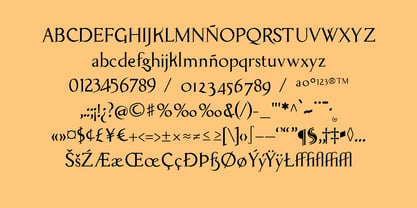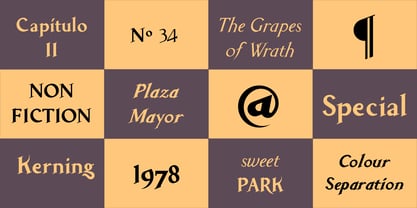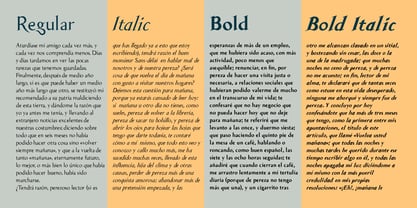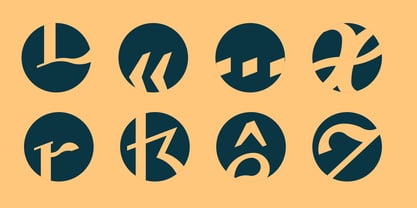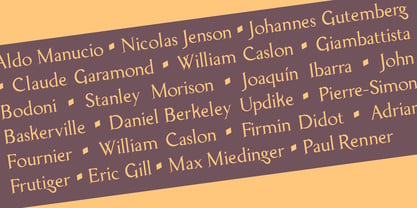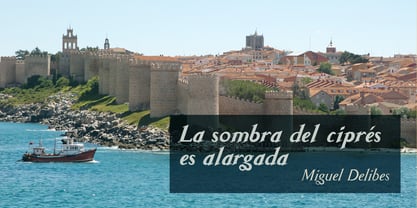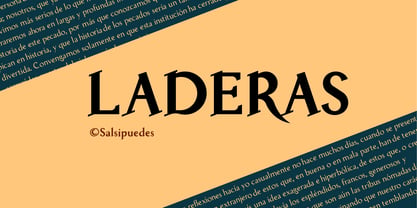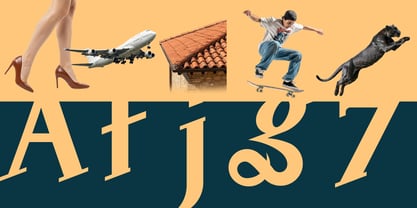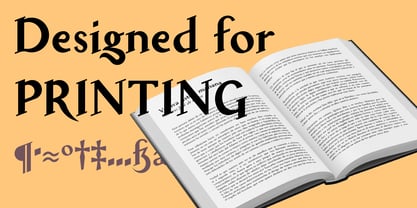
Laderas
This is not a typeface; this is also a tribute to the pioneers in this wonderful world of creating new tools of communication. The first printers in Europe carried out their work at a time when classical antiquity was beginning to be rediscovered. That influence blended with the scribal tradition, particularly in Central Europe.
Laderas aims to critically reexamine those early days, when Western typographic standards were established, and offer a different perspective. We now very used to working with typefaces with a stable baseline but the old Gothic style did not have a clear ending at bottom instead. Laderas experiments with blending both traditions Gothic and Roman but also includes elements from the Modern typography such as the thin and not modulated endings. The oblique endings make the letters dance on the baseline recalling the imperfections in the first printing pages.
Laderas is a typeface specially designed for printing and for a large text that require careful reading. Nowadays when the everything must go increasingly faster, having a communication tool that helps make the reading experience more relaxing is a very positive factor for well-being.
Finally, Laderas is versatile, with four weighs that covers most typographic needs, and it features a wide range of glyphs that ensure excellent performance in a Latin-script environment.